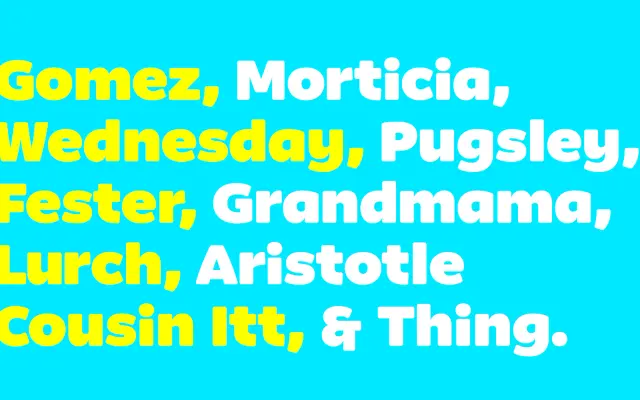
F37 Kookie
Rick Banks' soft, fully rounded display sans, marketed as the friendliest font imaginable for consumer, kids and lifestyle brands.
F37 Kookie is a soft, fully rounded display sans from Rick Banks at F37, sold by the foundry as the friendliest font imaginable, with no hard edges anywhere in the letterforms. Twelve styles run across Regular to Black with matching italics, giving enough weight range to push from gentle body copy into bold packaging and signage. Sits naturally in consumer, kids, food and lifestyle branding where you want warmth without dropping into a script.
F37 describe Kookie as soft, round and cuddly: a rounded display sans with no hard edges, framed playfully on the foundry site through a David Bowie reference. A twelve-style family with seven weights from Regular to Black, each with a matching italic.